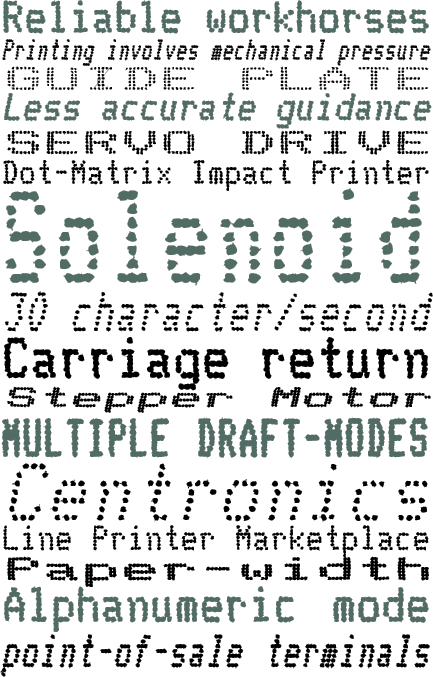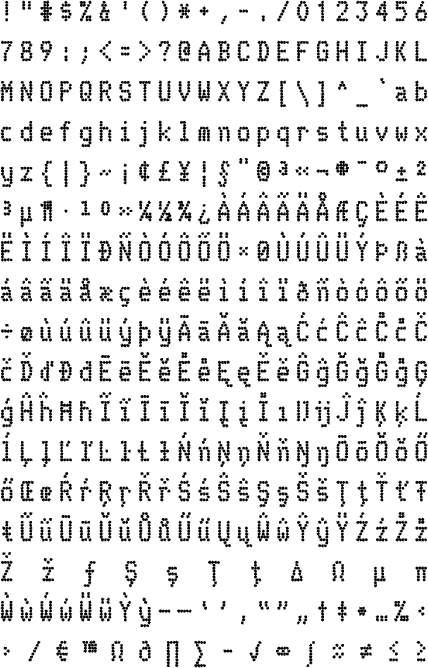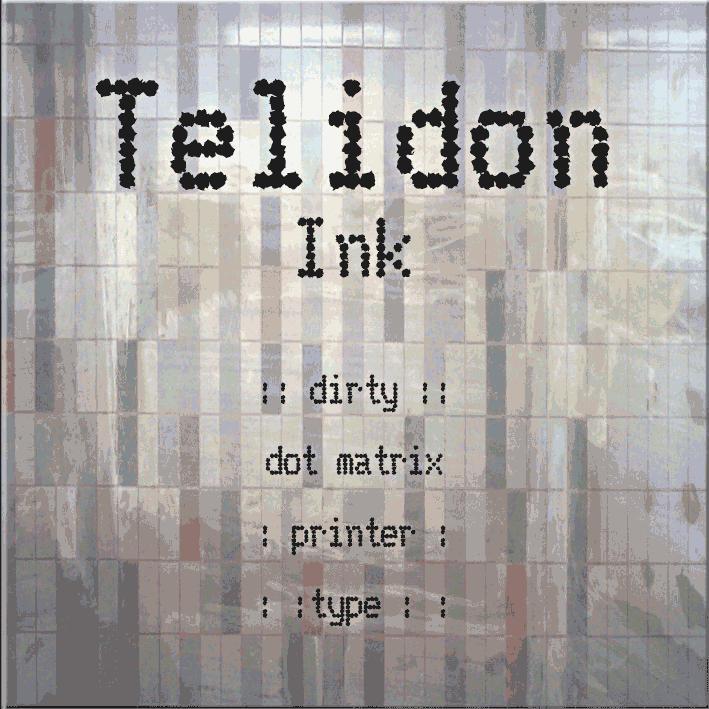
telidon ink
Telidon Ink has sunk to a new low in unacceptable behaviour. Originally hired because it had the same characteristics as Telidon, Telidon Ink definitely has his own personality. He doesn’t care if he’s not clean and crisp because he has other qualities. He’s basically upright and readable but he’s developed a slovenly appearance; his dots have become smeared, chipped and stained with ink.
Perhaps Telidon Ink should consider his options: printed in faded blue or dark gray makes him look exactly like he came from an overuseed, underserviced dot matrix printer. In black, in the heavier weights, he has the appearance of an overzealous print head banging away on a fresh ink ribbon.